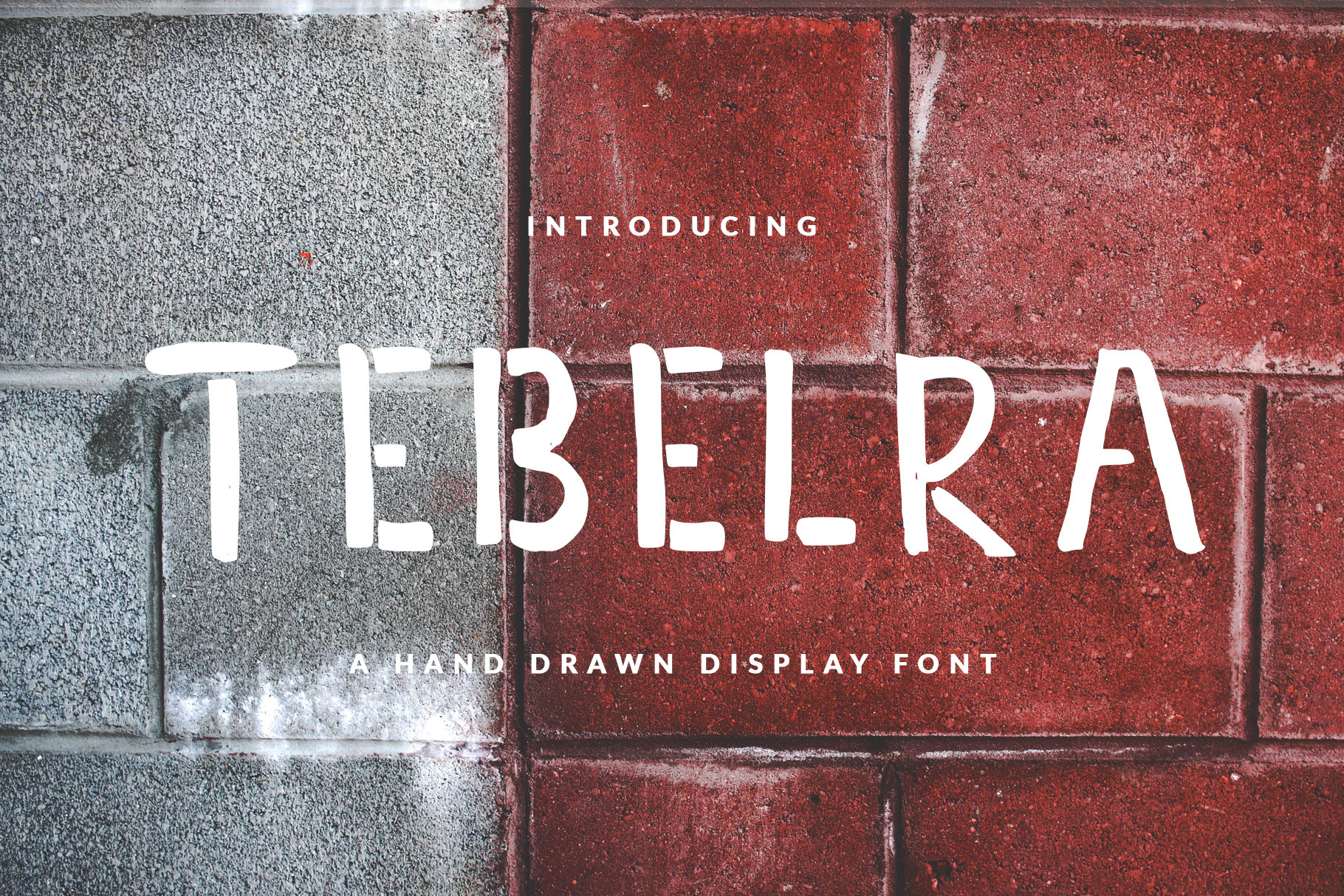
TEBELLRA FONT Heading & Bold
Sans serif hand-drawn display font called TEBELLRA was designed for modern, classic, bold, unique and other style also fit for Header website, general use for header text, kids stories, books, poems and other long text